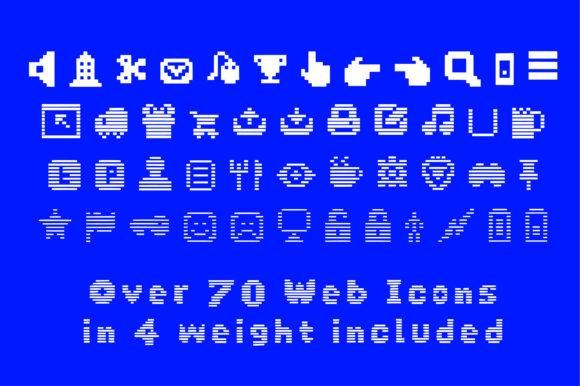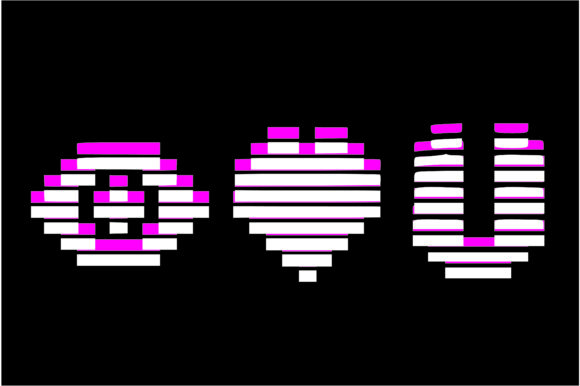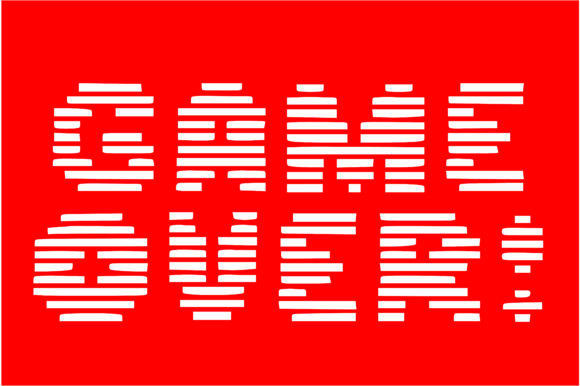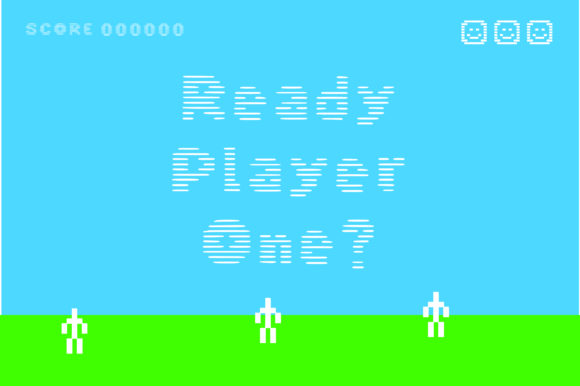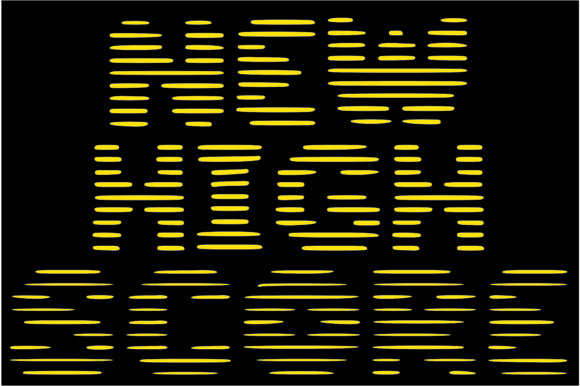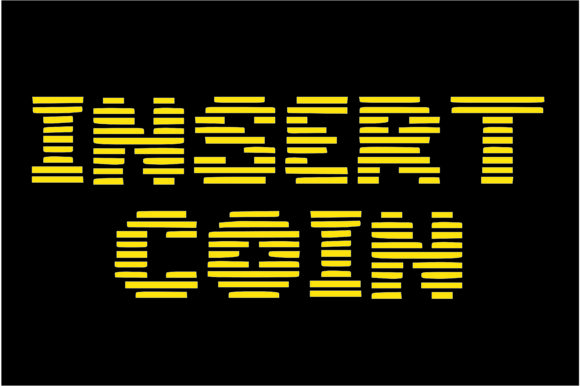
Introduction to Big Pixel Horizontal Font
Big Pixel Horizontal is a unique and bold font that was inspired by computers.
Use it for any design project that needs a futuristic update .
Key Features of Big Pixel Horizontal Font
Why Choose Big Pixel Horizontal Font?